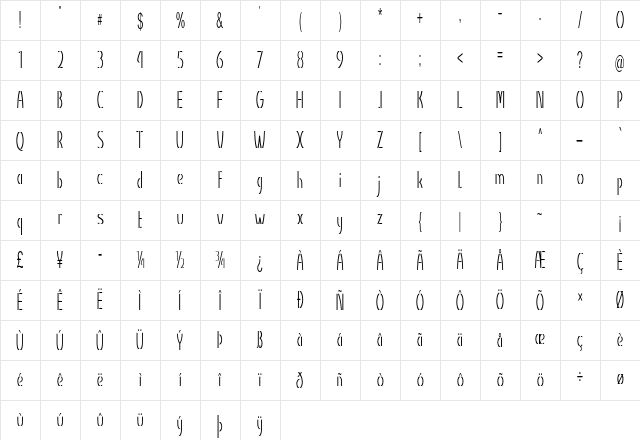
Braxon Extra-condensed Regular Free Font
Braxon Extra-condensed Regular
Style: Extra-condensed Regular
Braxon Family
Braxon Extra-condensed Regular
Design Context for Braxon
Braxon is a composed and adaptable typeface that performs quietly and consistently across a wide range of design contexts. Its narrow stance lets it pack a punch even in space-constrained designs.